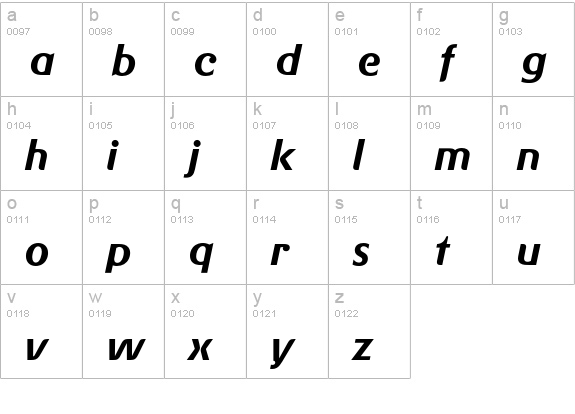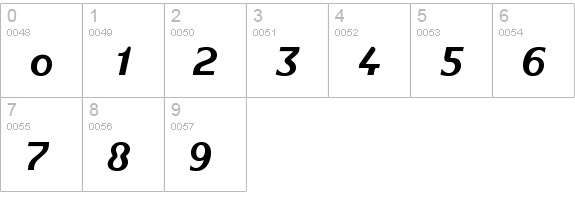
Gerstner BQ Medium Italic Font Details
Gerstner BQ Medium Italic is a balanced, medium-weight, italic variant in the Gerstner typeface family \xE2\x80\x94 well suited to sub-headlines, navigation, and balanced editorial work.
Gerstner BQ Medium Italic font is a stylish and versatile typeface that exudes elegance and sophistication. Its slanted form adds a touch of dynamism and flair to any design project. The medium weight strikes the perfect balance between readability and impact, making it ideal for headlines, subheadings, and body text. This font's classic yet contemporary design lends itself well to a variety of applications, from branding and packaging to editorial and web design. Its smooth curves and subtle detailing give a refined and polished look to any piece of work. Best of all, Gerstner BQ Medium Italic font is available for free download at FontsMarket.com. Whether you're a professional designer looking to enhance your projects or a hobbyist exploring new typefaces, this font is a must-have addition to your collection. Don't miss out on the opportunity to elevate your designs with this beautiful and versatile font.